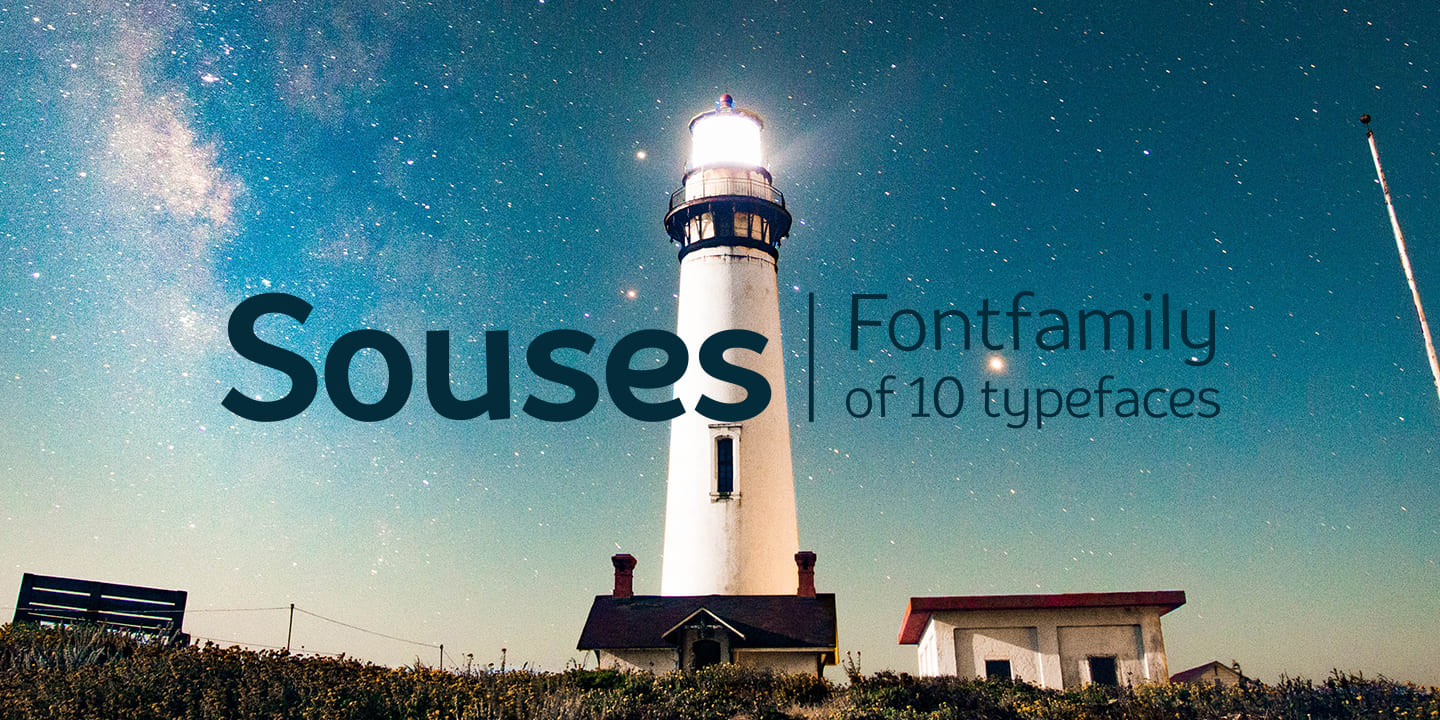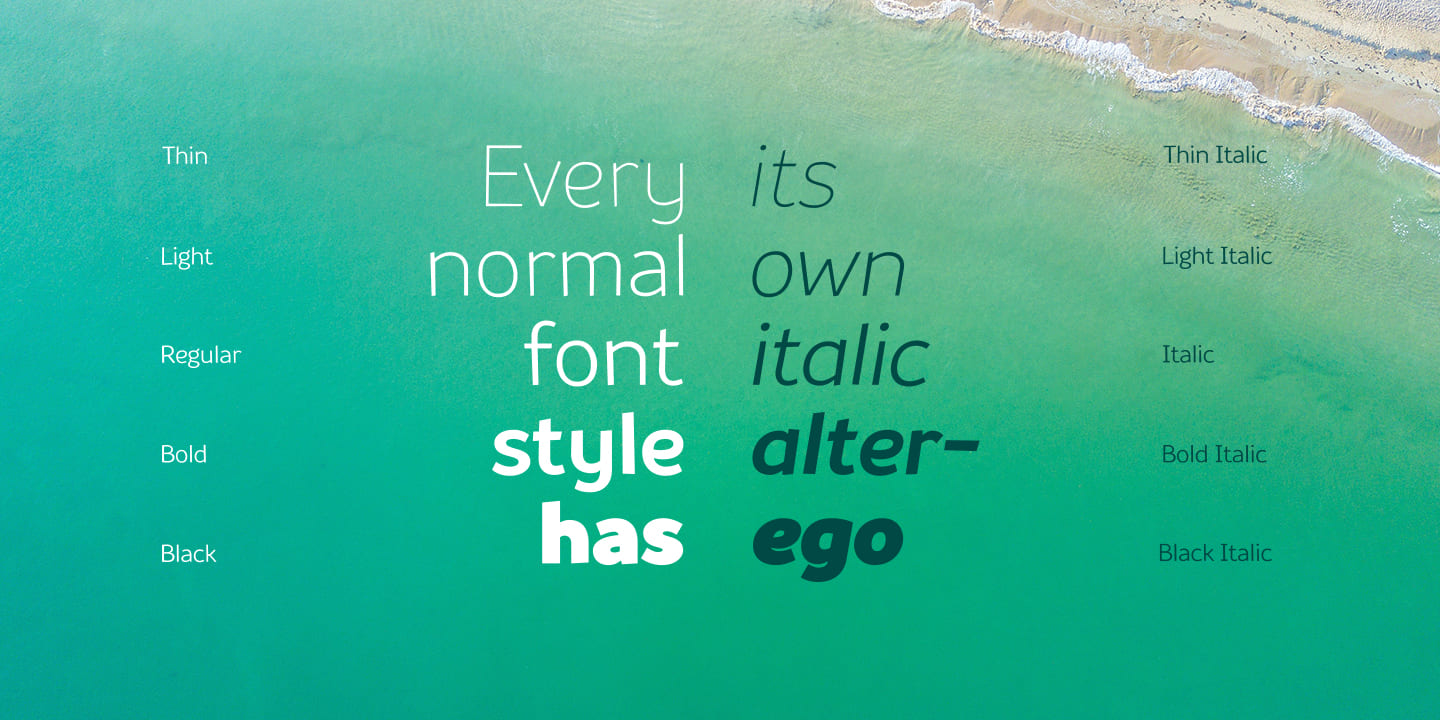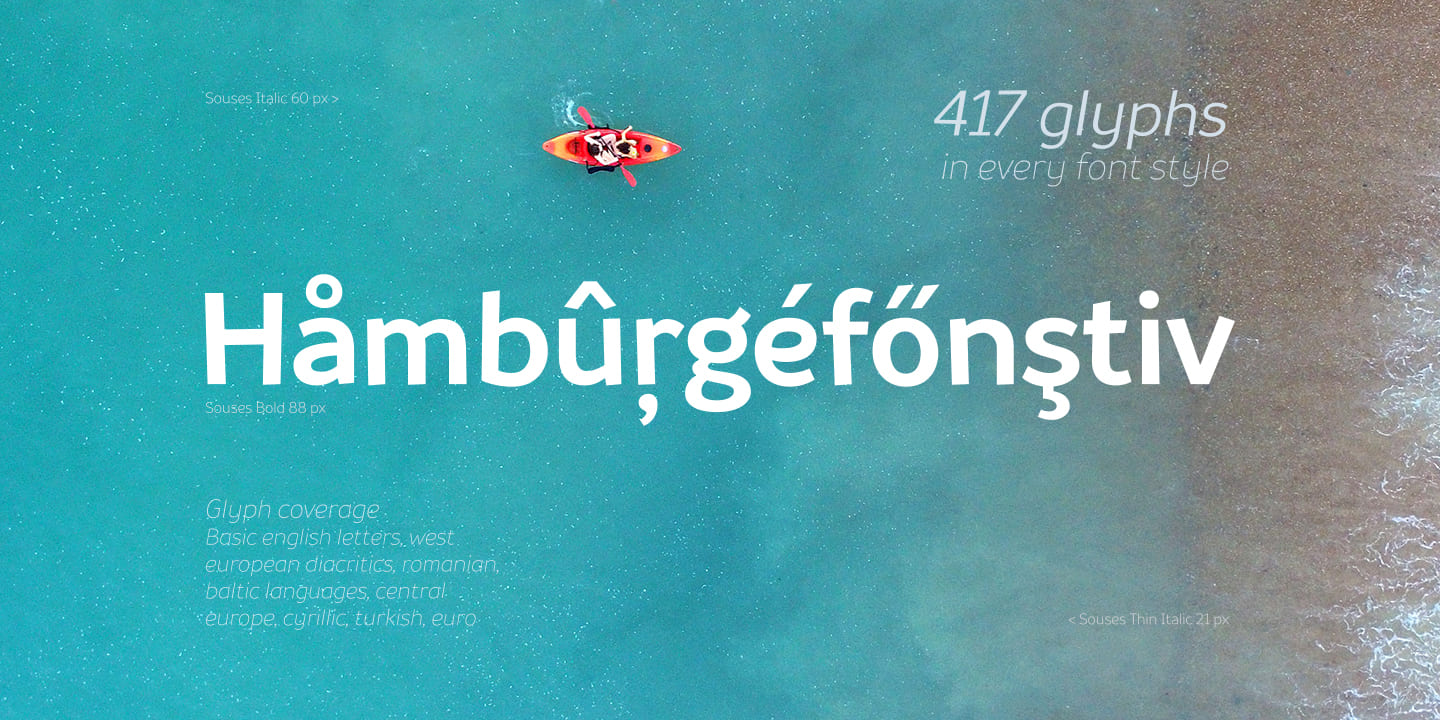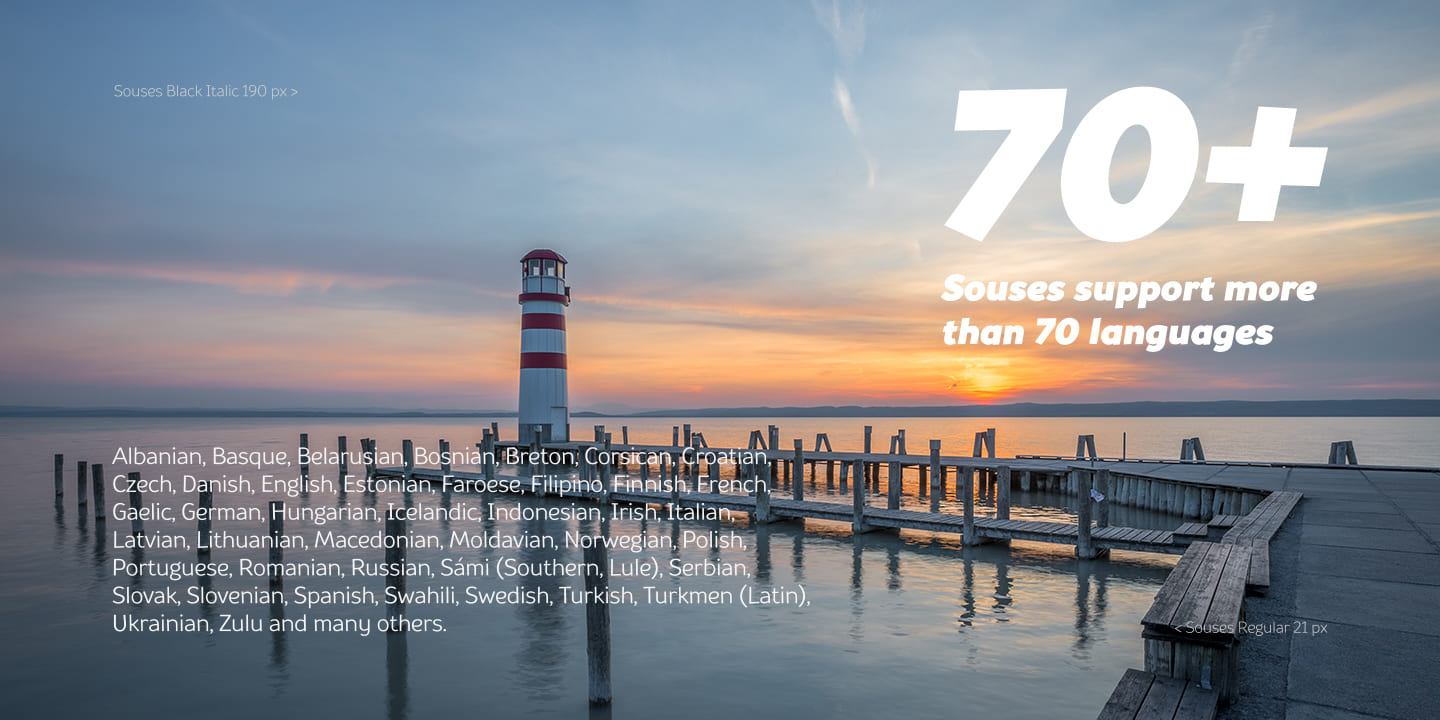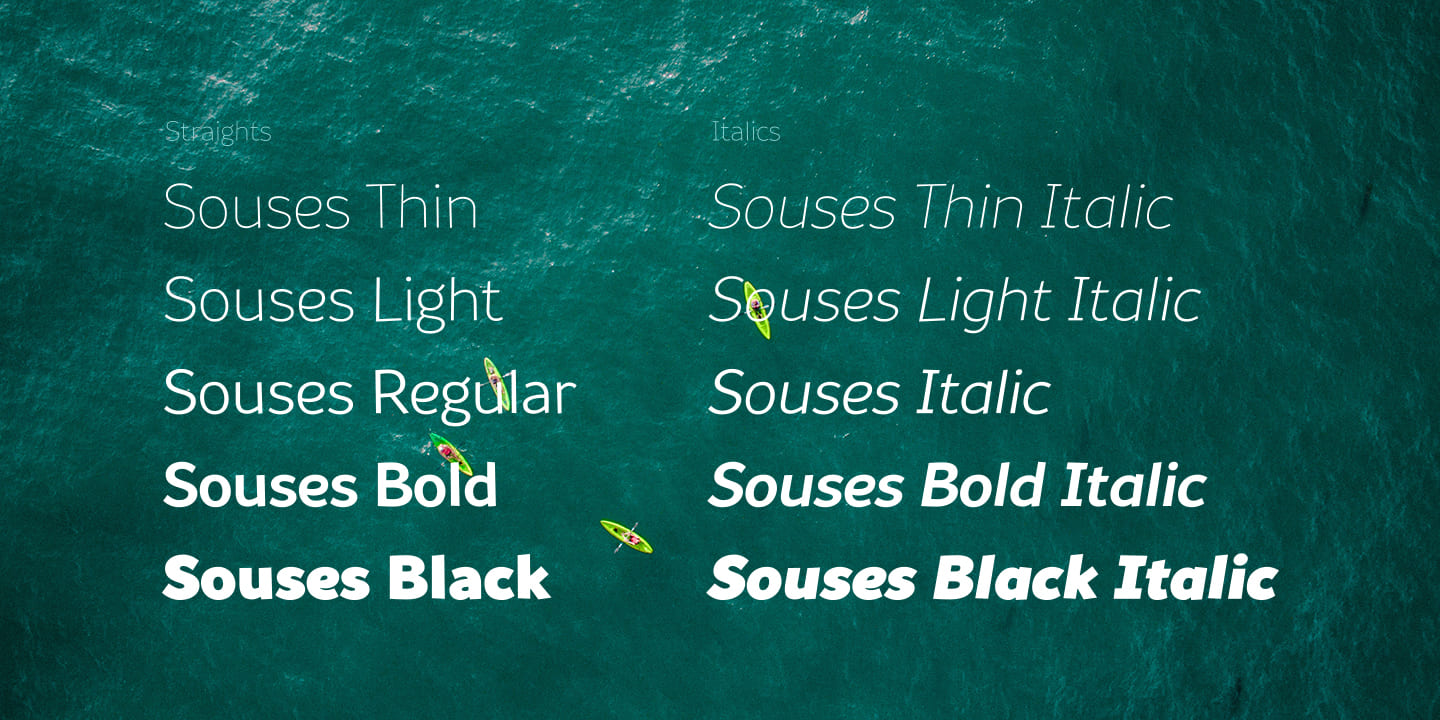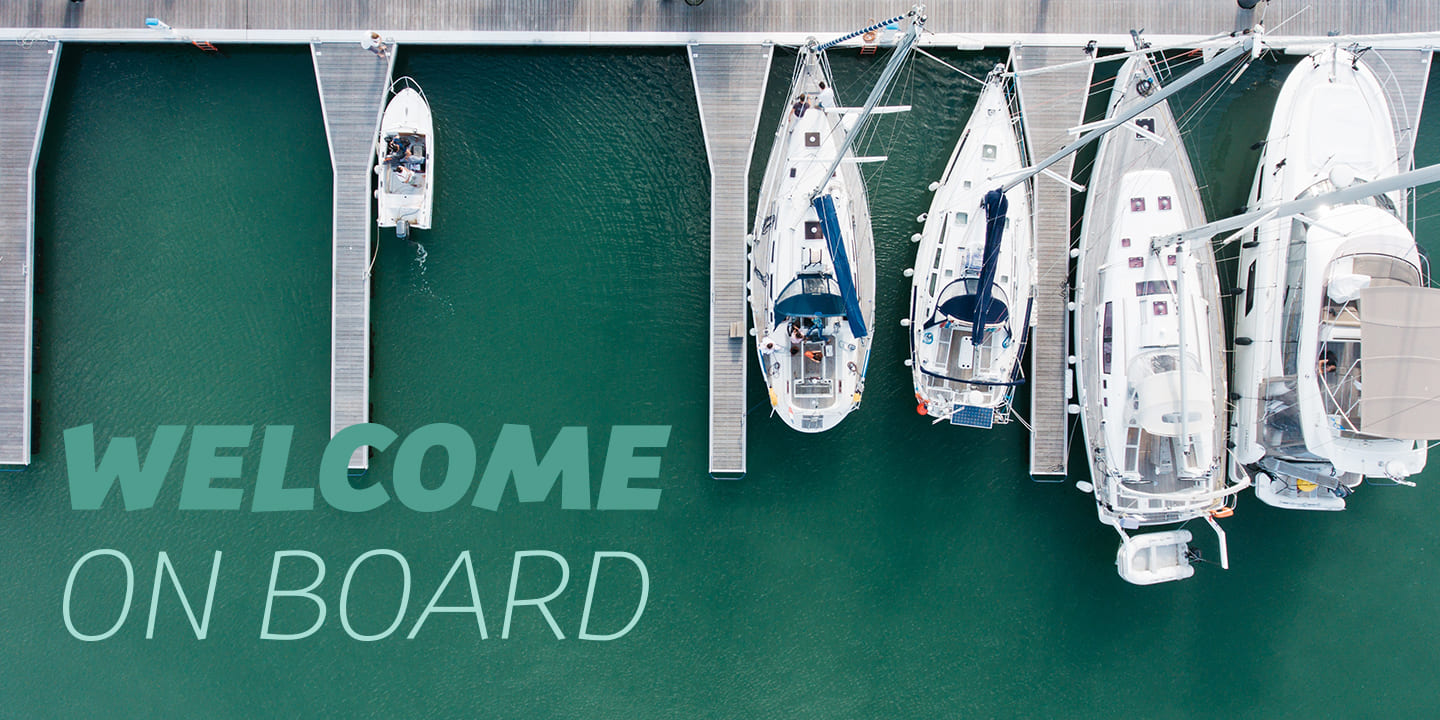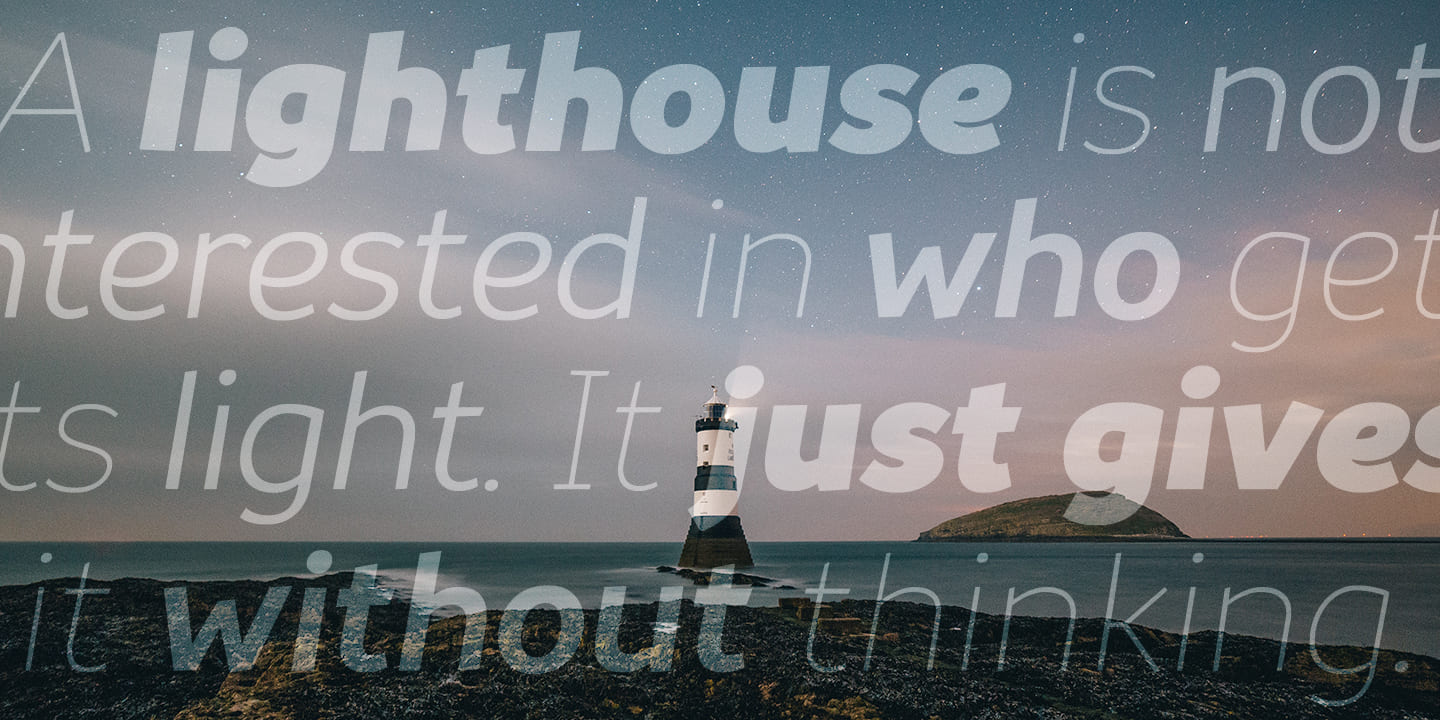
Souses Family (10 fonts)
Scope: animation, packaging, logotypes, movie titles, children’s products, ecology, cafes, menus, posters, interiors, outdoor advertising.
Optimized for the websites, mobile applications and printing materials.